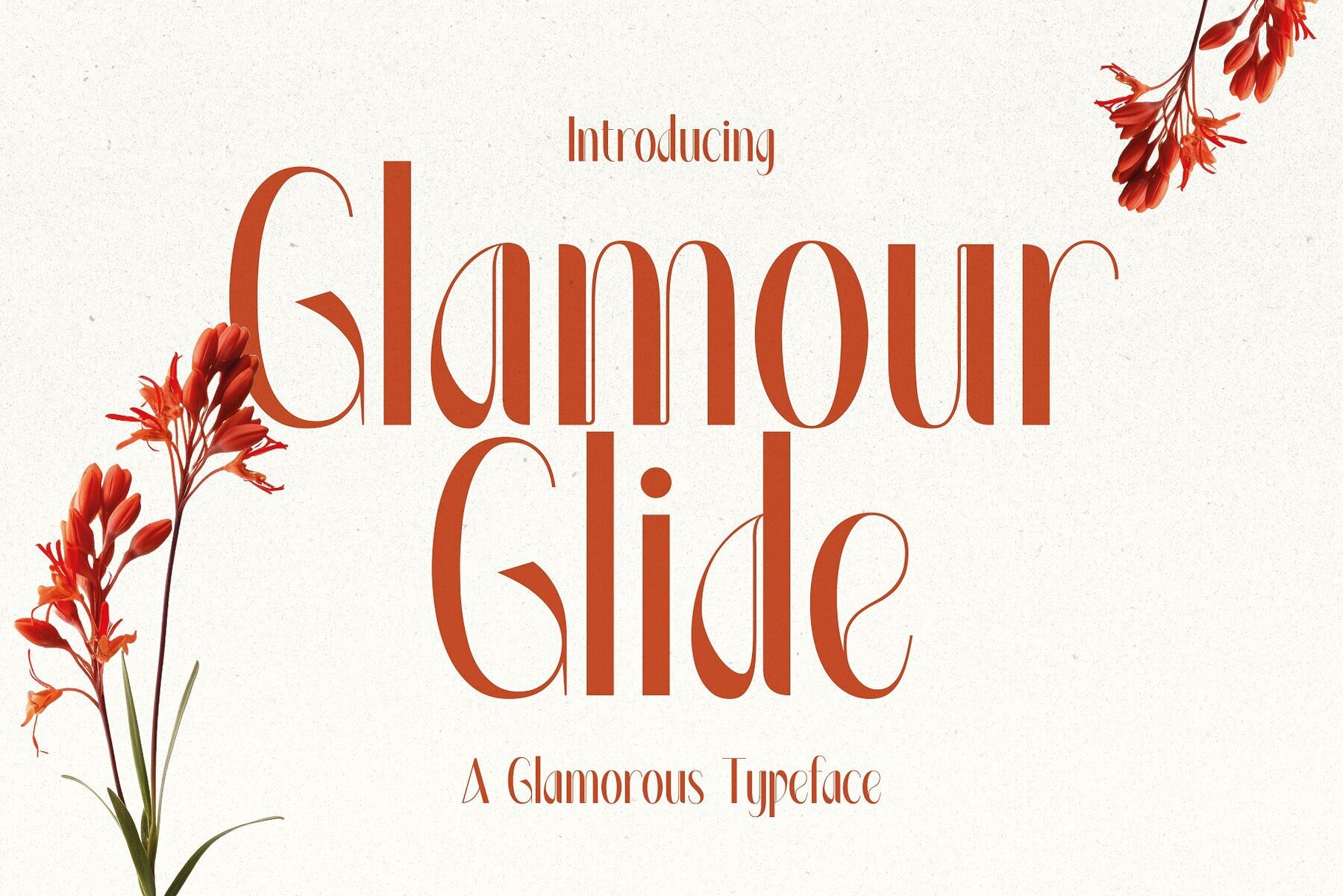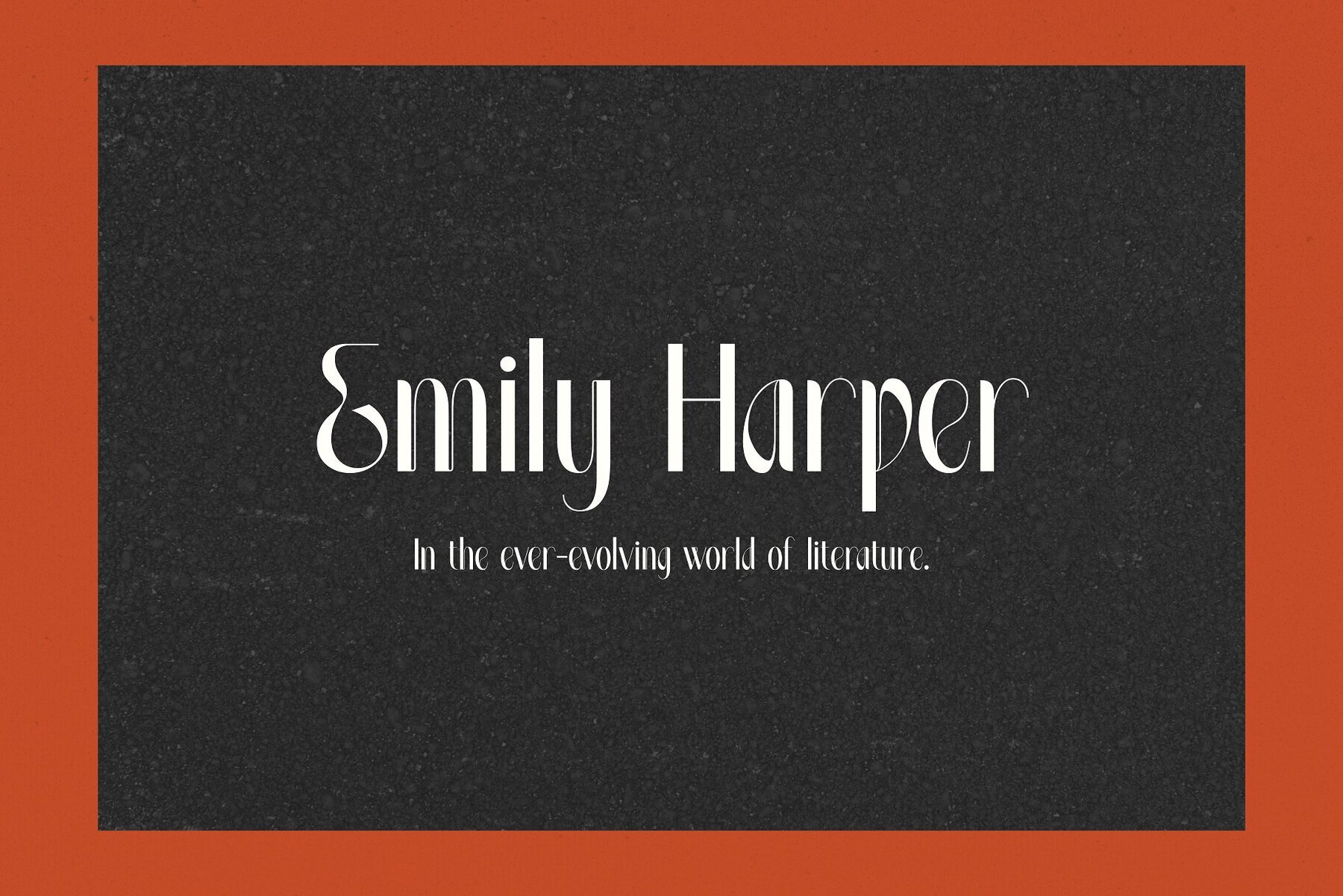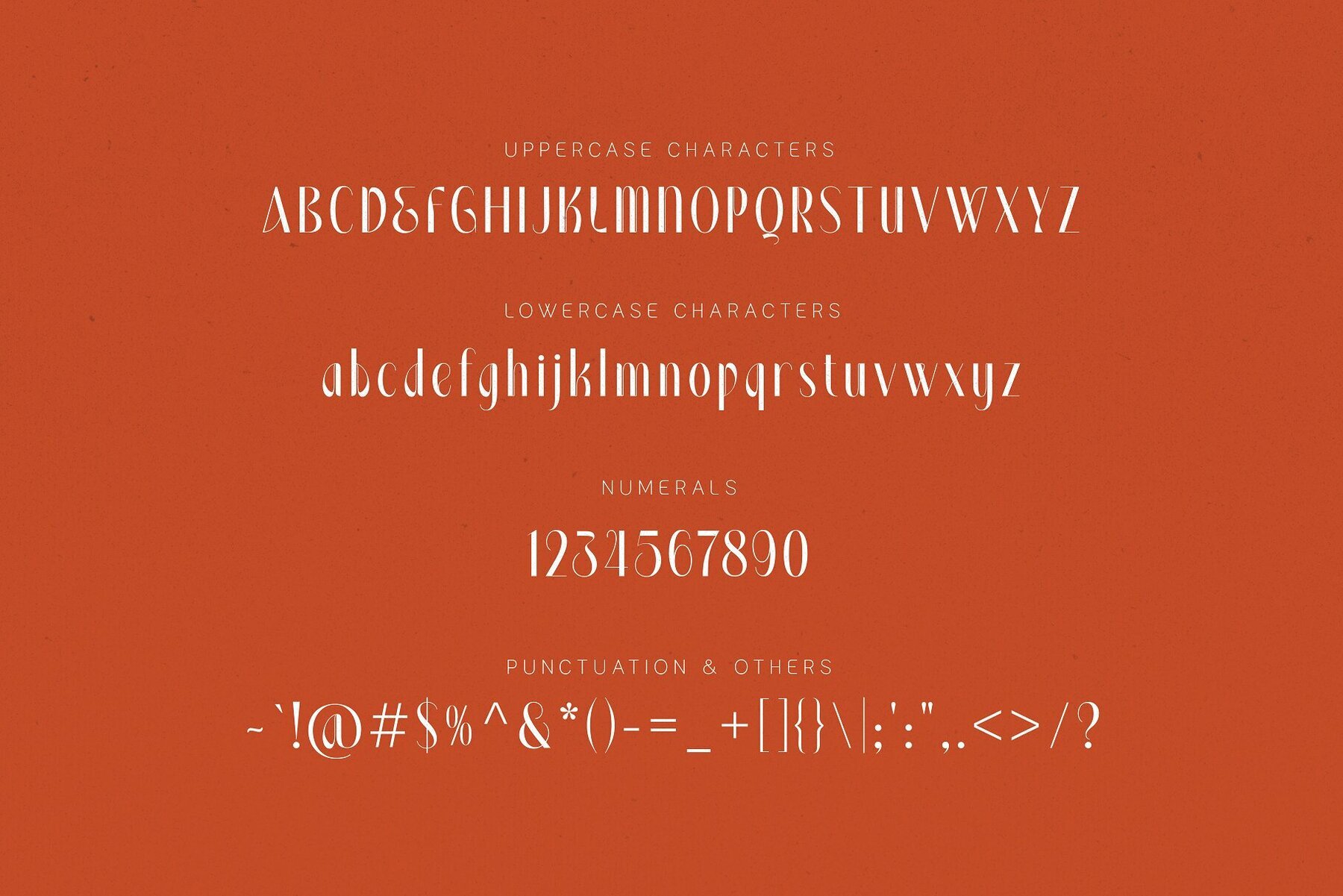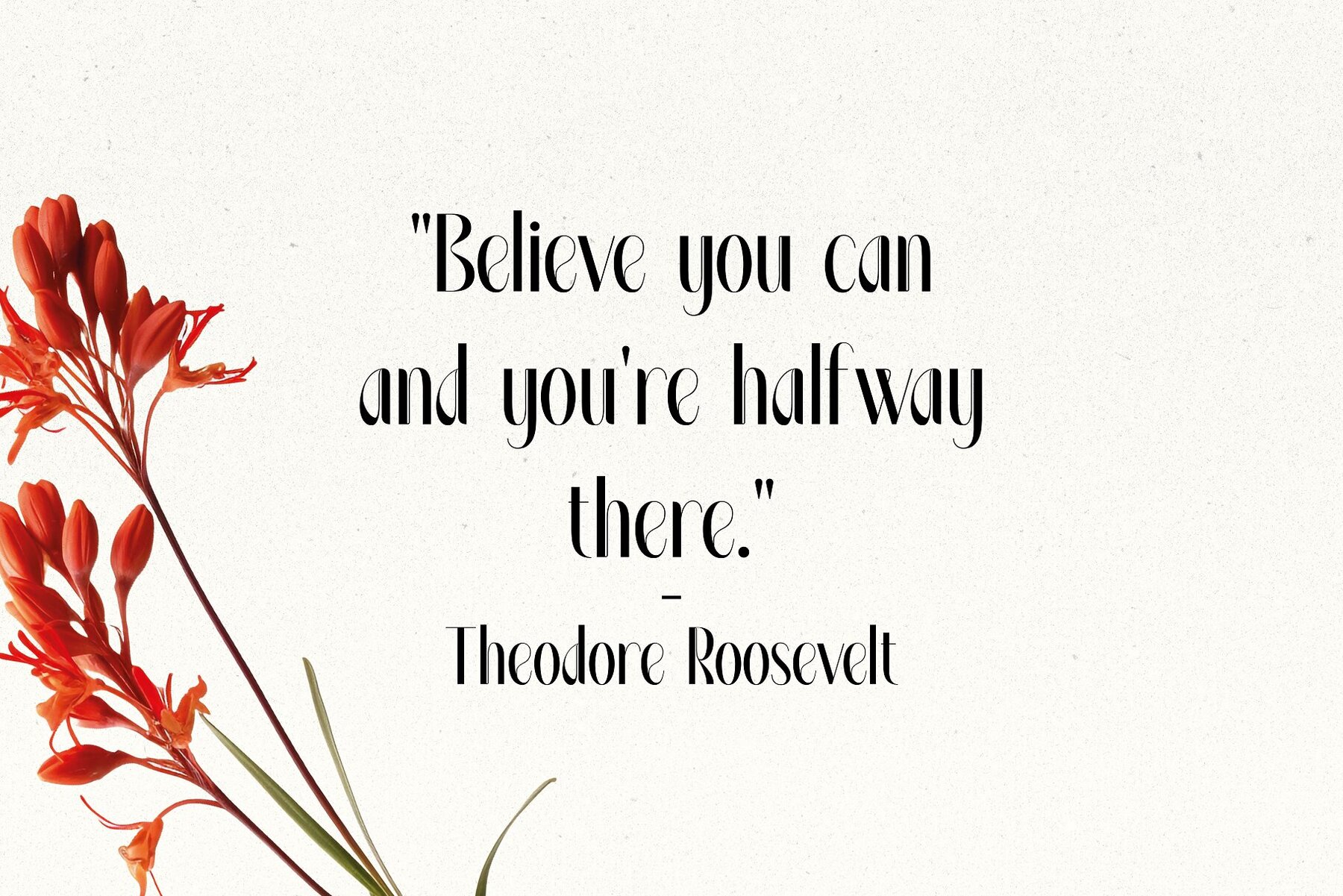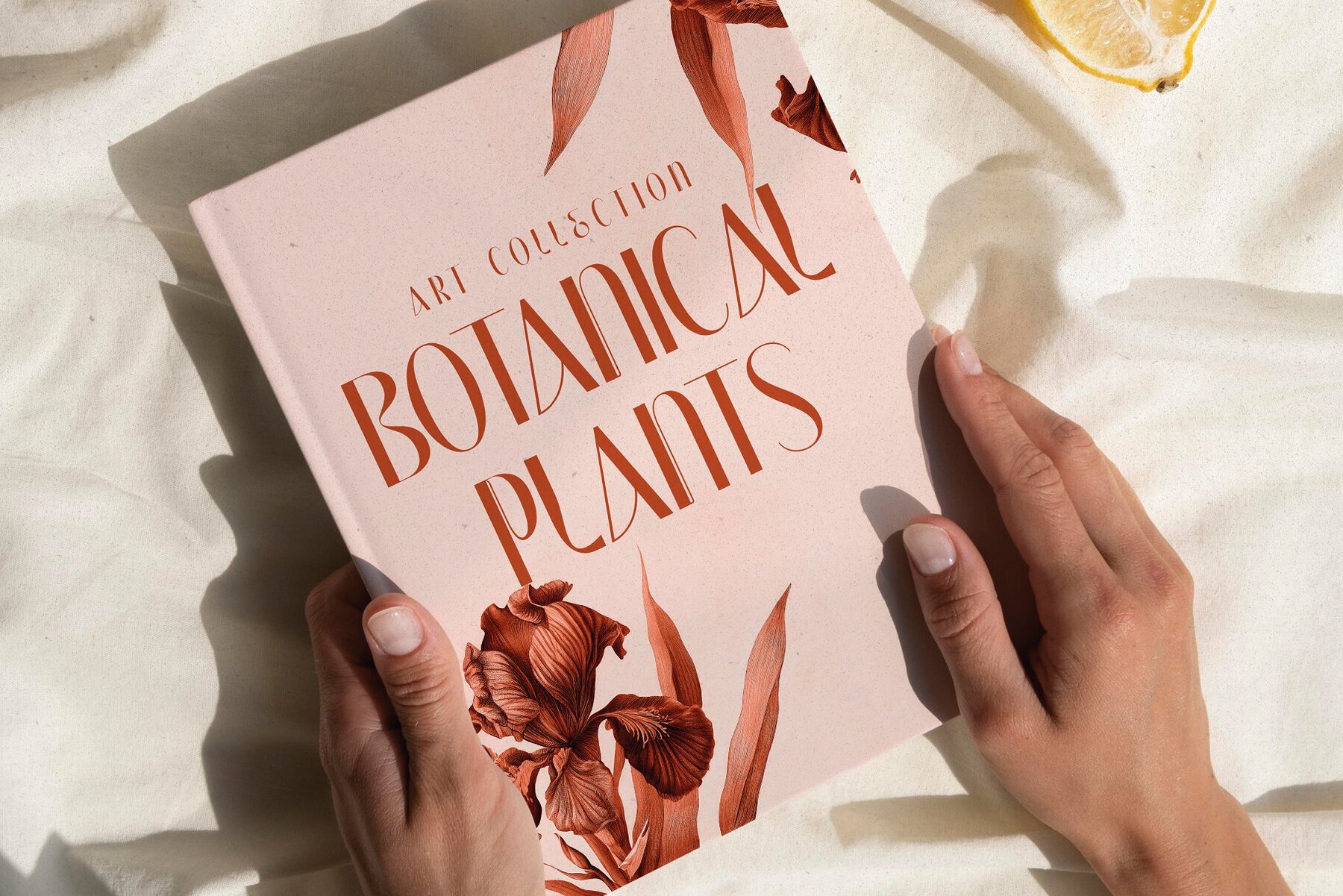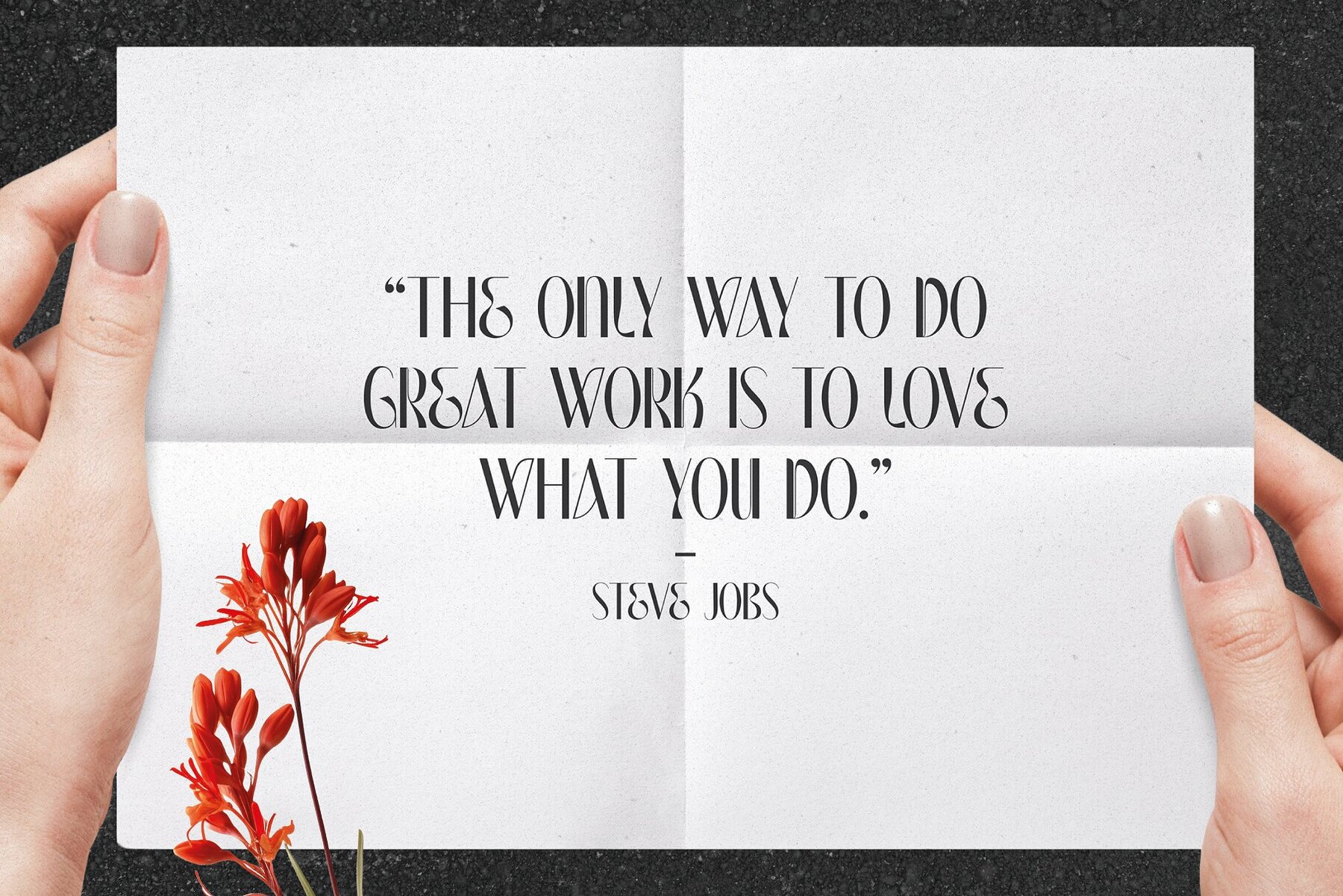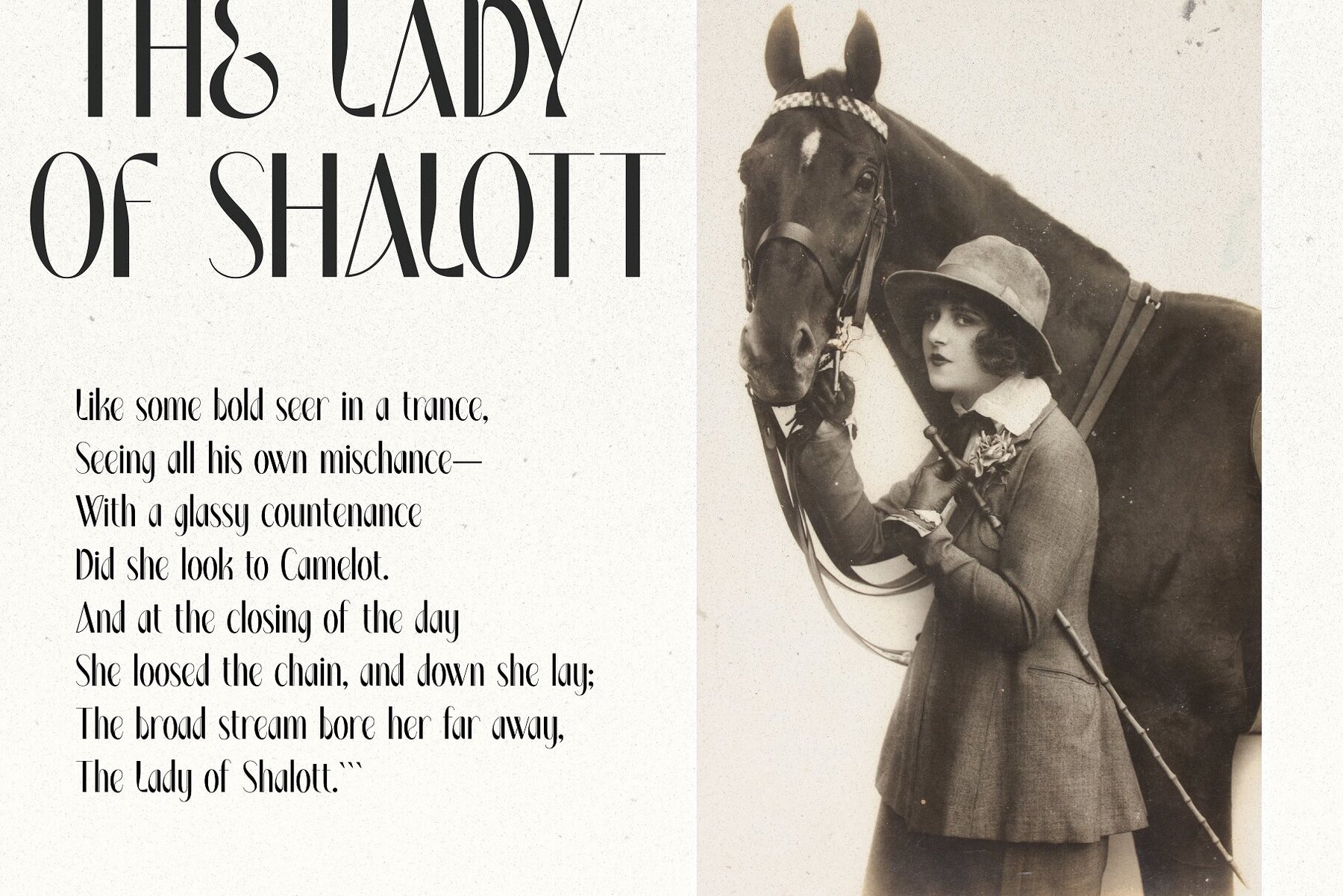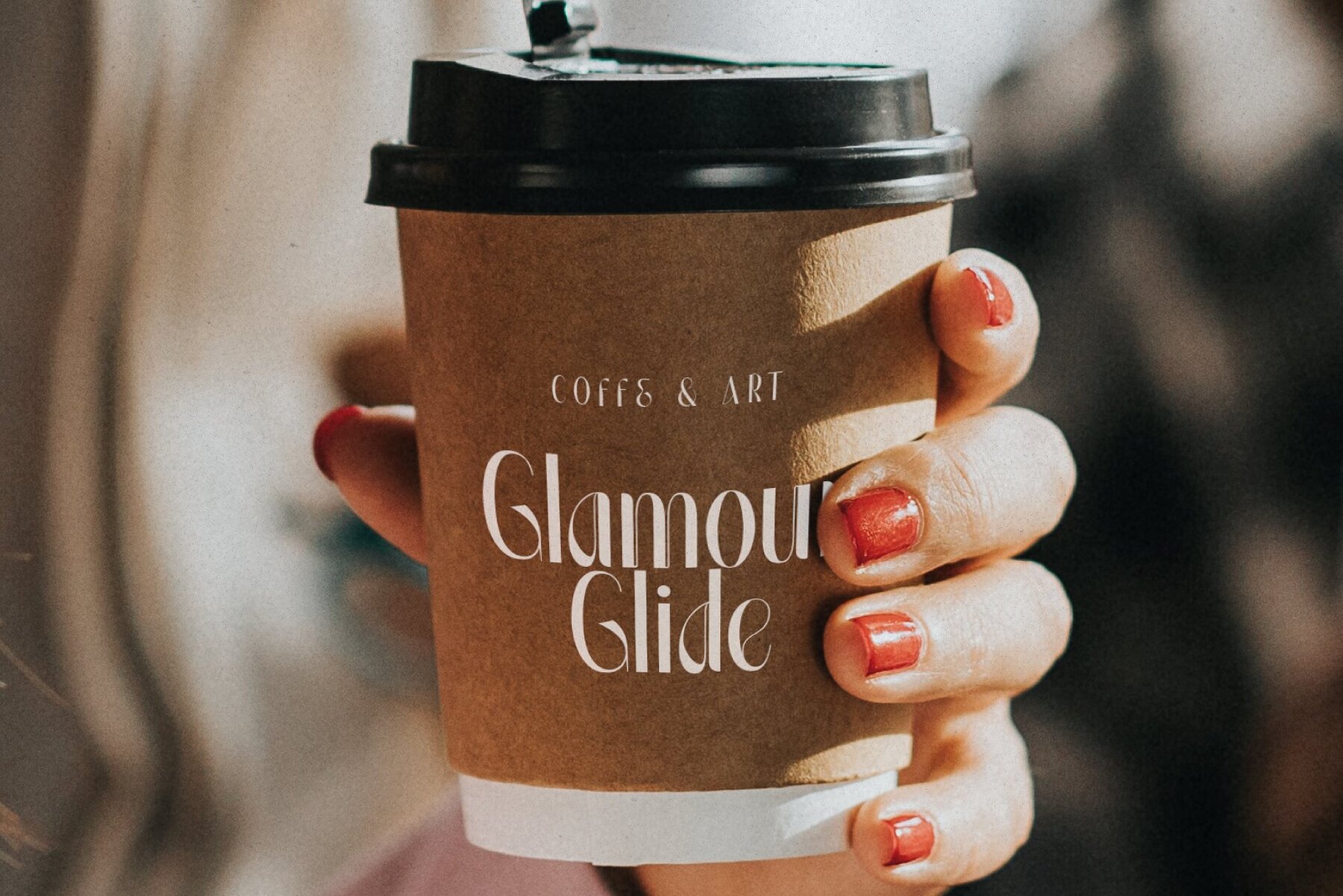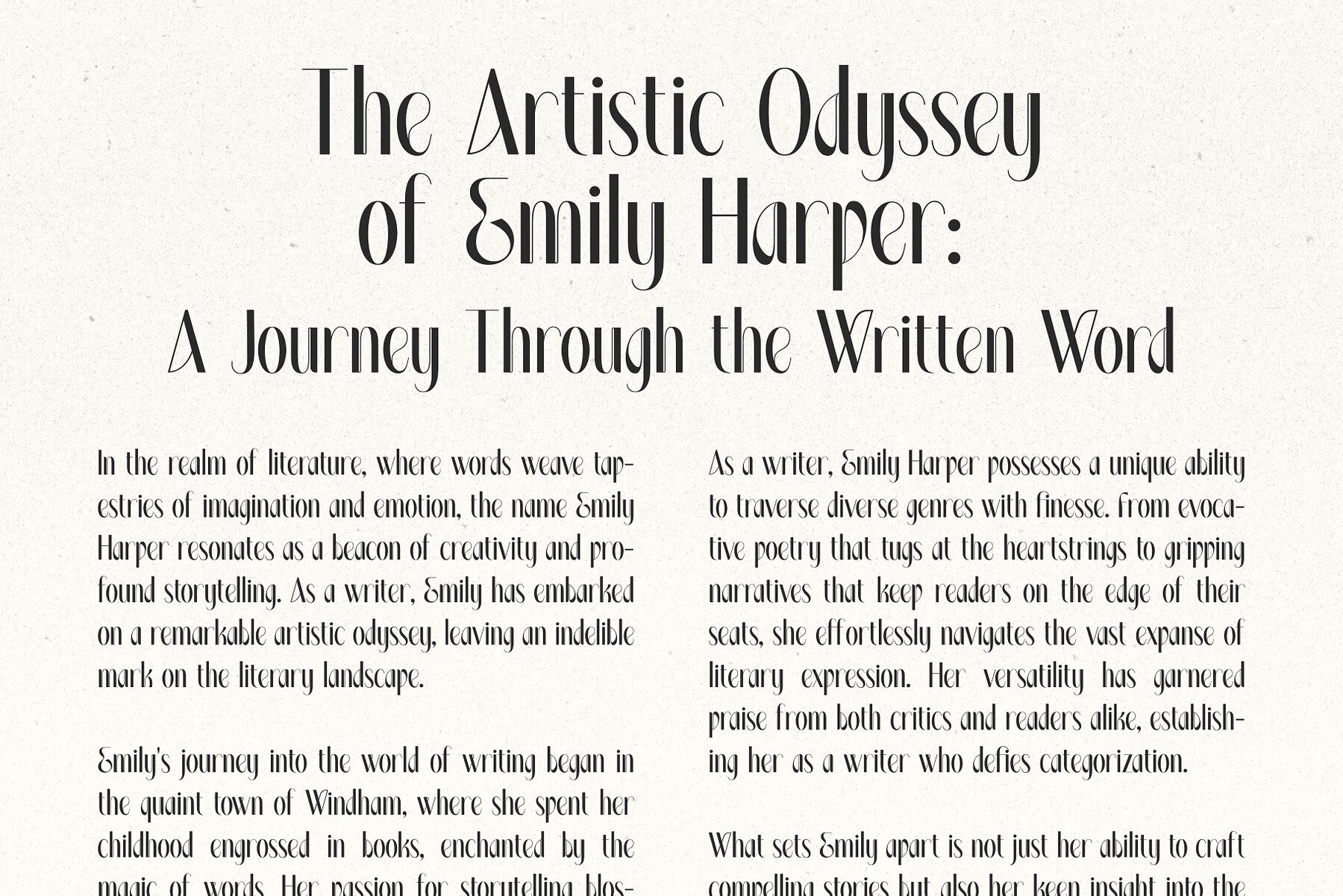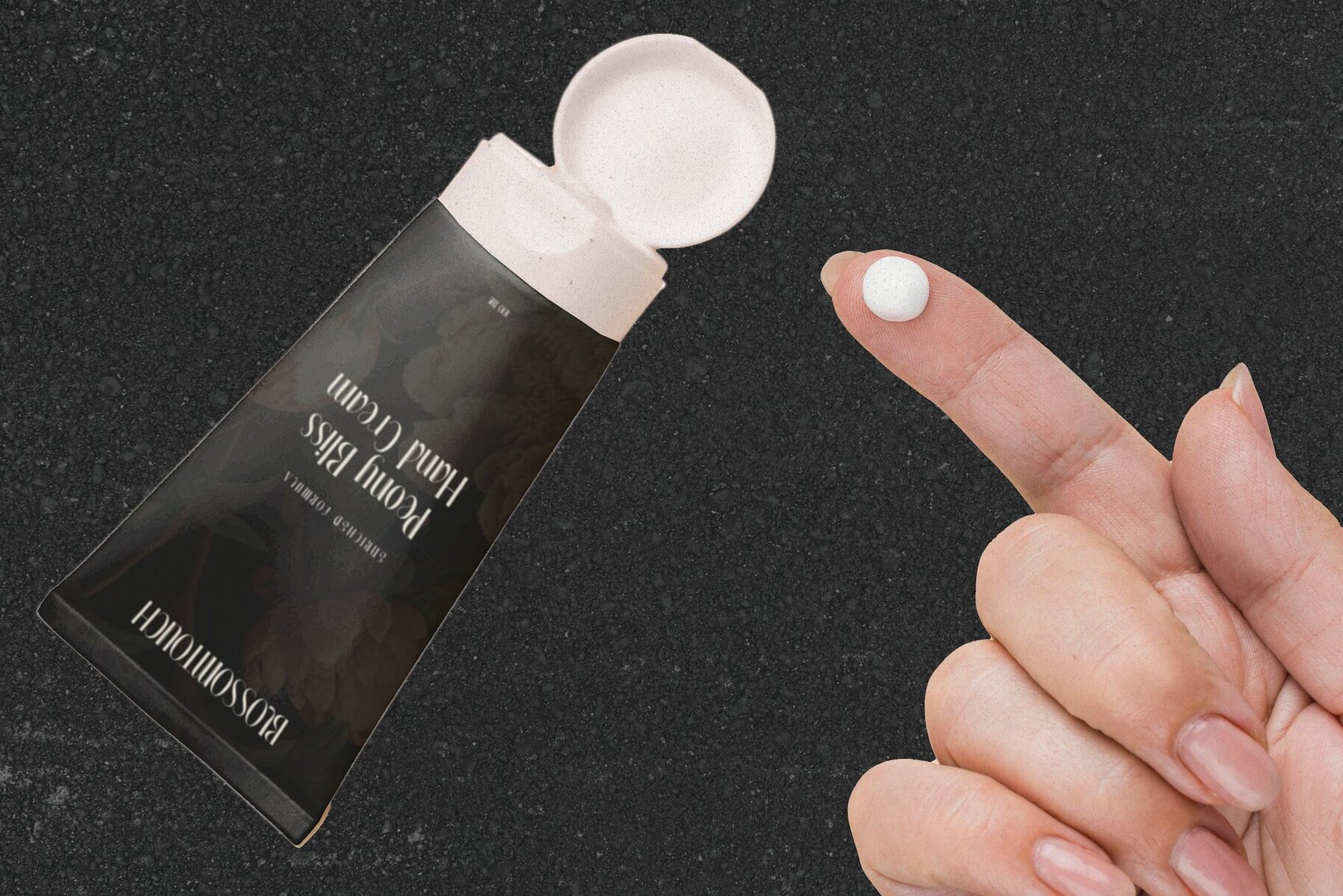
Glamour Glide is an exquisitely designed typeface that embodies the essence of glamour, elegance, and sophistication. Crafted for those who seek to infuse their designs with a touch of luxury and refinement, this font stands out with its sleek lines and graceful curves. Glamour Glide is a celebration of beauty, offering a timeless aesthetic that appeals to high-end fashion brands, luxury publications, and upscale branding projects. With a harmonious balance between its delicate serifs and smooth, flowing letterforms, Glamour Glide captures the allure of the haute couture world. Its characters are designed to glide across the page, creating a sense of fluidity and effortless chic that elevates any text it adorns. The typeface features a range of weights from light to bold, each meticulously crafted to ensure legibility and style at any size. Glamour Glide isn’t just a font; it’s an experience. It invites audiences into a world of sophistication, making it perfect for fashion magazines, luxury branding, elegant invitations, and any project that demands a touch of class. The font also includes a set of unique ligatures and stylistic alternates, allowing designers to customize their creations with bespoke details that capture the essence of glamour. Whether you’re designing for the fashion industry, creating marketing materials for high-end products, or simply looking to add a dash of elegance to your designs, Glamour Glide offers the perfect blend of style and functionality. Embrace the beauty of Glamour Glide and let your designs soar on the wings of sophistication.